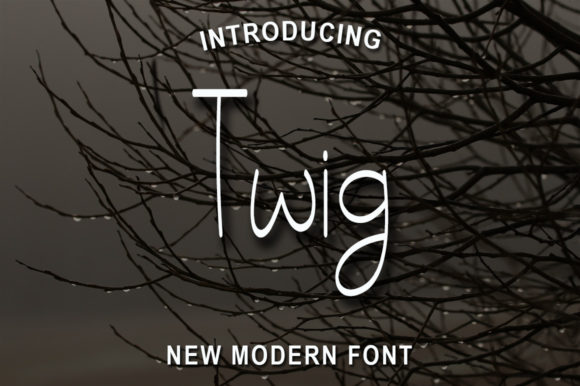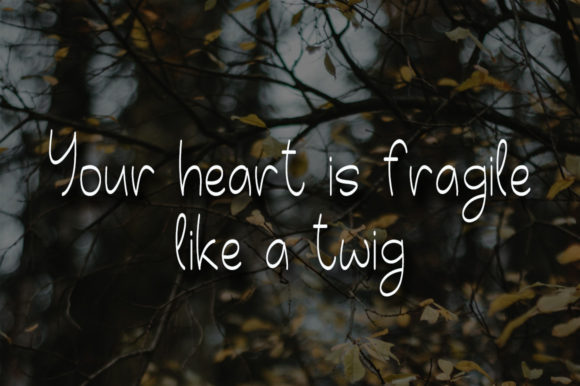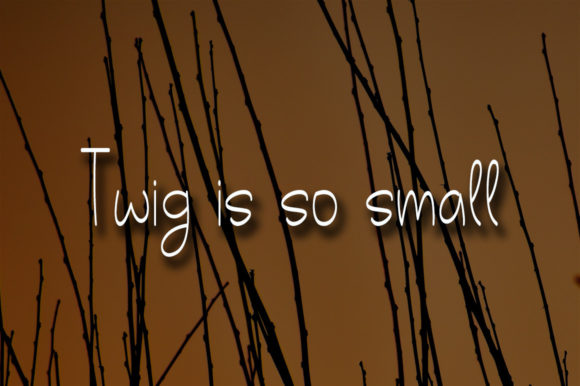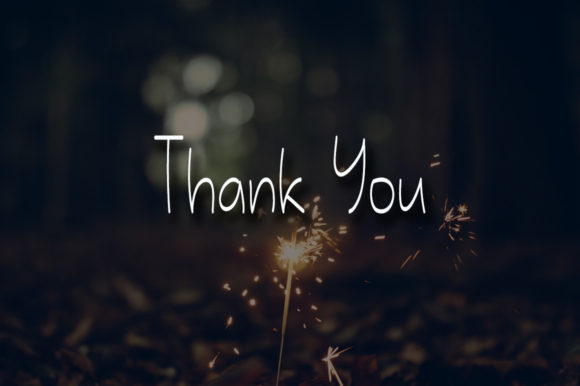
Twig Font
About Twig Font
Twig is a simple and flowing handwritten font. This adaptable font will look great on a variety of design ideas. It will add a fun and friendly touch to each of your projects!